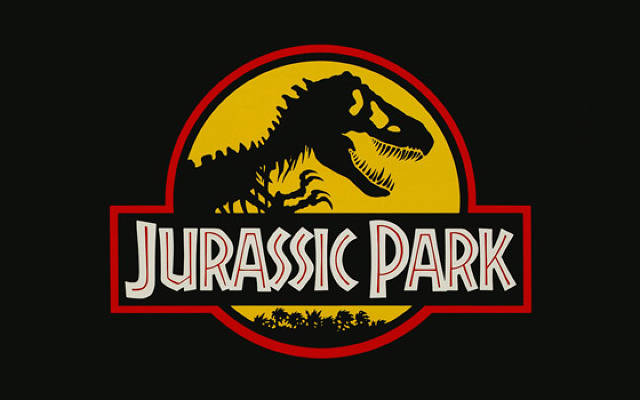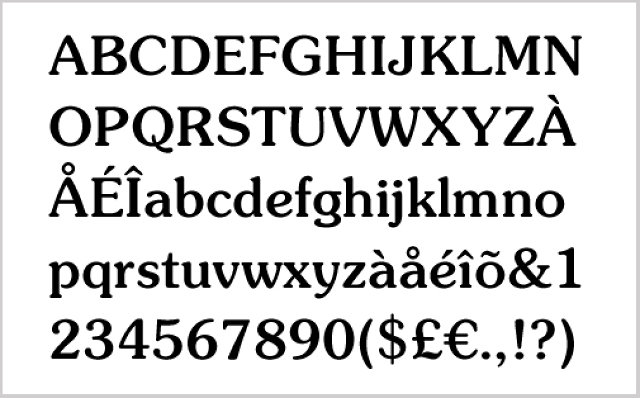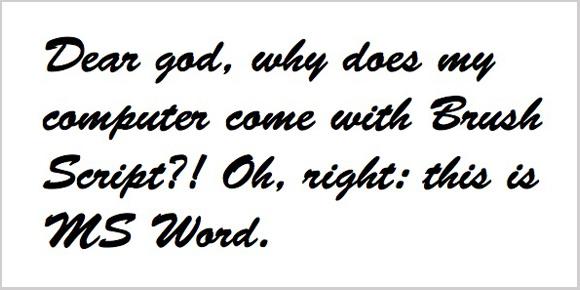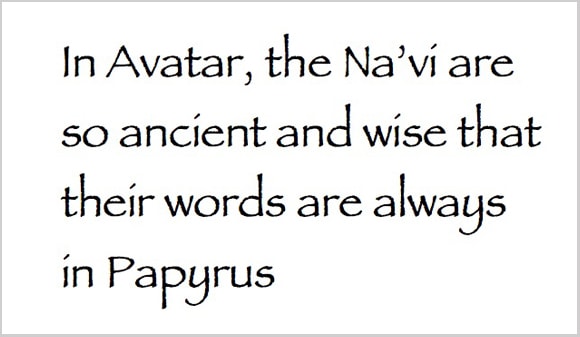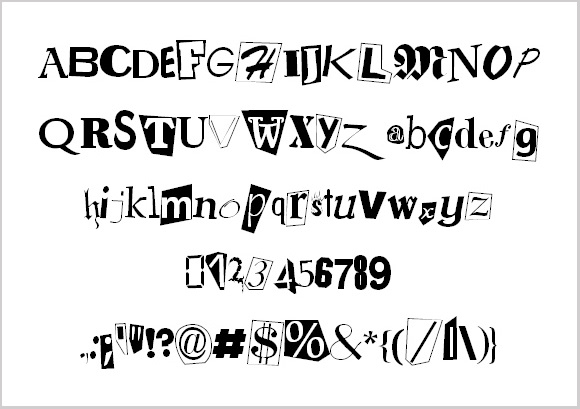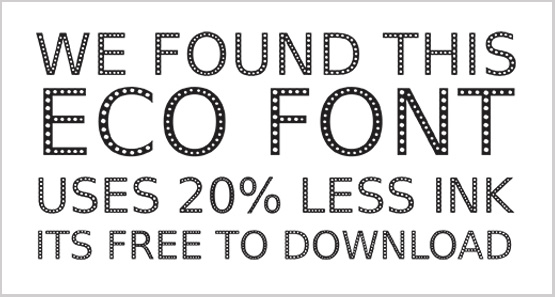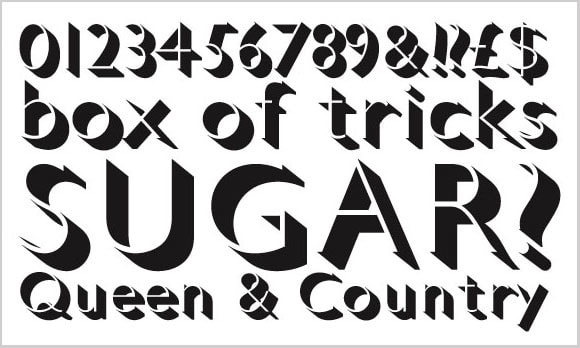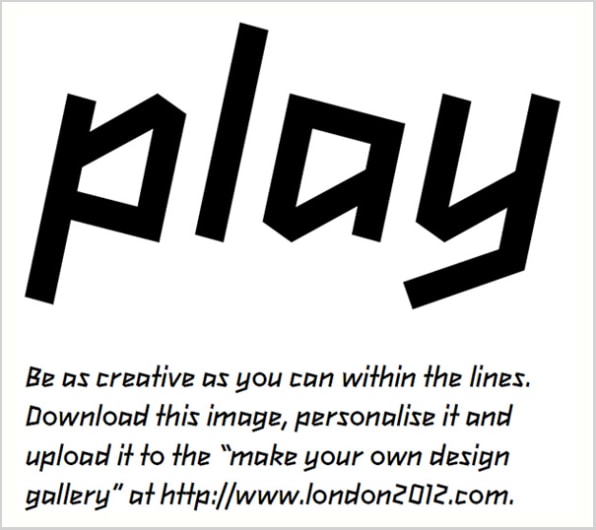
The 8 Worst Fonts In The World
In "Just My Type," Simon Garfield counts down his least favorite typefaces. And Comic Sans isn’t among them.
We’d need another book, of course, to do this justice. And where would one start?
Fonts are like cars on the street--we notice only the most beautiful or ugly, the funniest or the flashiest. The vast majority roll on regardless. There may be many reasons why we dislike or distrust certain fonts, and overuse and misuse are only starting points. Fonts may trigger memory as pungently as perfume: Gill Sans can summon up exam papers. Trajan may remind us of lousy choices at the cinema (you’ll see it on the posters of more bad films than any other font) and grueling evenings with Russell Crowe. There was a time when it looked as though he would only appear in films--A Beautiful Mind; Master and Commander; Mystery, Alaska--if the marketing team promised to use Trajan in its pseudo-Roman glory on all its promotional material (There is a funny and rather alarming YouTube clip about this.)
Most of the time we only notice typeface mistakes, or things before or behind their times. In the 1930s, people tutted over Futura and predicted fleeting fame; today we may be outraged by the grunge fonts Blackshirt and Aftershock Debris, but in a decade they may be everywhere, and a decade after that we may be bored with their blandness. Fortunately, choosing the worst fonts in the world is not merely an exercise in taste and personal vindictiveness--there has been academic research. In 2007, Anthony Cahalan published his study of font popularity (or otherwise) as part of Mark Batty’s Typographic Papers Series (Volume 1). He had sent an online questionnaire to more than a hundred designers, and asked them to identify: A) the fonts they used most B) the ones they believed were most highly visible C) the ones they liked least.The Top Tens were:
Used Regularly:
- Frutiger (23 respondents)
- Helvetica/Helvetica Neue (21)
- Futura (15)
- Gill Sans (13)
- Univers (11)
- Garamond (10)
- Bembo
- Franklin Gothic (8)
- 9. Minion (7)
- 10. Arial
Highly Visible:
- Helvetica/Helvetica Neue (29)
- Meta (13)
- Gill Sans (9)
- Rotis (8)
- Arial (7)
- ITC Officina Sans (4)
- Futura (3)
- Bold Italic Techno; FF Info; Mrs Eaves; Swiss; TheSans; Times New Roman (2)
Least Favorite:
- Times New Roman (19)
- Helvetica/Helvetica Neue (18)
- Brush Script (13)
- Arial
- Courier (8)
- Rotis
- Souvenir (6)
- Grunge Fonts (generic) (5)
- Avant Garde
- Gill Sans (4)
- Comic Sans (3)
The Least Favorite survey contained brief explanations. Twenty-three respondents said the fonts were misused or overused; 18 believed they were ugly; others found them to be boring, dated, impractical or clichéd; 13 expressed either dislike or blind hatred.
This was not the first such survey to be conducted. There seems to be a new one every year online, but they tend to concentrate, rightly, on best fonts. Occasionally a novel theory emerges, such as the opinion expressed by the designer Mark Simonson on the Typophile forum. Simonson believes that some typefaces are ‘novice magnets’, possessing properties that draw in those with an untrained eye but a desire to impress. ‘To the average person, most fonts look more or less the same. But, if a typeface has a strong flavour, it calls attention to itself. It’s easy to recognize and makes people feel like they know something about fonts when they recognize it. And it looks “special” compared to normal (i.e., boring) fonts, so using it makes their documents look “special.” To the experienced designer, such typefaces have too much flavour, call too much attention to themselves, not to mention the fact that they often carry the baggage of being associated with amateur design.’
The choice of the Worst Typefaces in the World that follows may appear to be purely subjective, like the choice of most reviled pop singer or most hilarious fashion crime. And so it is. But there is also a broad consensus about what constitutes awfulness in type. As we have seen, the one thing that most people (type professionals and laypeople combined) agreed on is that Comic Sans is no good at all. But it is harmless and even benign, and, on account of its unassuming beginnings, perhaps does not deserve the loathing that has been heaped upon it. But what can you say about the virtually illegible outer-limits fonts: Grassy, for example: a type with hair; or Scrawlz, which looks like writing by a 3- or 103-year-old?
These targets, though, are just too easy, and it would be like criticizing your child’s acting in the nativity play. By contrast, the names in the list below, designed by professionals for reward and approval, have had it coming for a while. Here then, in reverse order, are my nominations for the eight worst fonts in the world.
#8: Ecofont
One ought to approve. Ecofont is designed to save ink, money and eventually the planet, but heaven save us from worthy fonts. Ecofont is a program that adds holes to a font. The software takes Arial, Verdana, Times New Roman and prints them as if they had been attacked by moths. They retain their original shape, but not their inner form, and so lose their true weight and beauty. They also usually go no bigger than 11pt, although at this size or smaller they may save you 25 percent of ink consumption.
The plus side: In 2010 Ecofont won a European Environmental Design Award. The downside: a study at the University of Wisconsin claimed that some Ecofont fonts, such as Ecofont Vera Sans, actually use more ink and toner than lighter regular fonts such as Century Gothic (although one could, of course, always print Century Gothic using Ecofont software).
The verdict: the string vest and Swiss Cheese of fonts; a nice idea for printing large documents in draft--but do you really need to print them at all?
#7: Souvenir
“Real men don’t set Souvenir,” wrote the type scholar Frank Romano in the early 1990s, by which time he had already been performing character assassination on the type for over a decade. At every opportunity in print and online, Romano would have a go. ‘Souvenir is a font fatale . . . We could send Souvenir to Mars, but there are international treaties on pollution in outer space . . . remember, friends don’t let friends set Souvenir.’